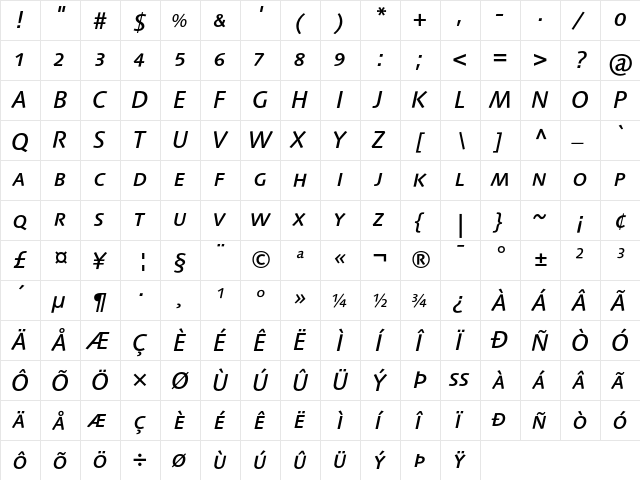
LinotypeSyntaxSC MediumIt
Design Context for LinotypeSyntaxSC Typeface
LinotypeSyntaxSC takes a measured approach to typography — its balanced proportions and neutral character make it a reliable workhorse for both digital and print work.